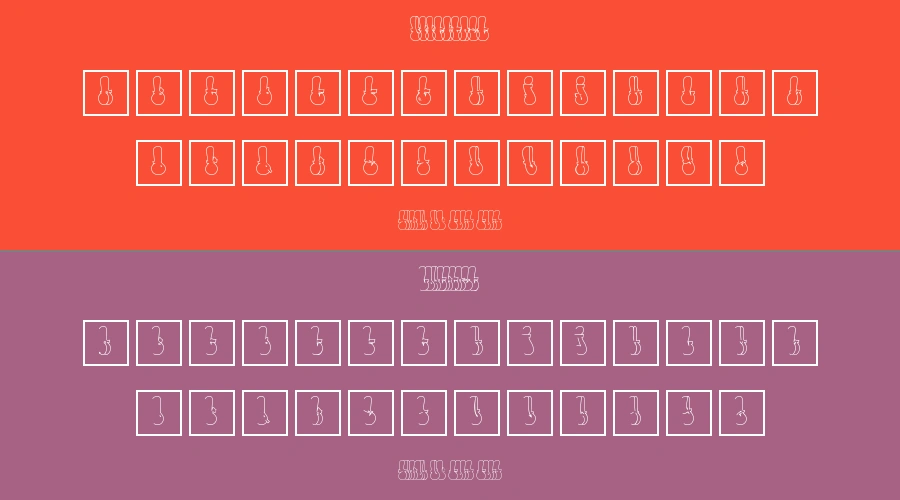
About Throw Up Font Font
Throw Up Font Font represents a sophisticated approach to type design, balancing dramatic swashes with textural consistency. Perfect for print publications, this font family showcases impressive consistency and refinement throughout its character set. Designers appreciate its versatility and reliability.
Designers will appreciate nuanced touches including sharp terminals and connecting forms, adding sophistication to any project. These features become apparent in product names, where detail retention matters most. The careful treatment of descender depth and scientific authority ensures optimal performance.